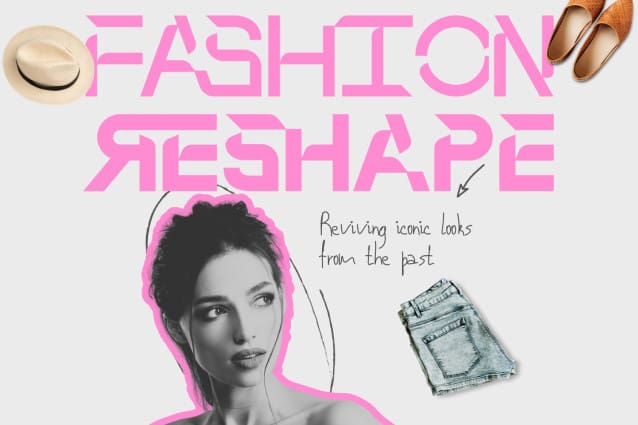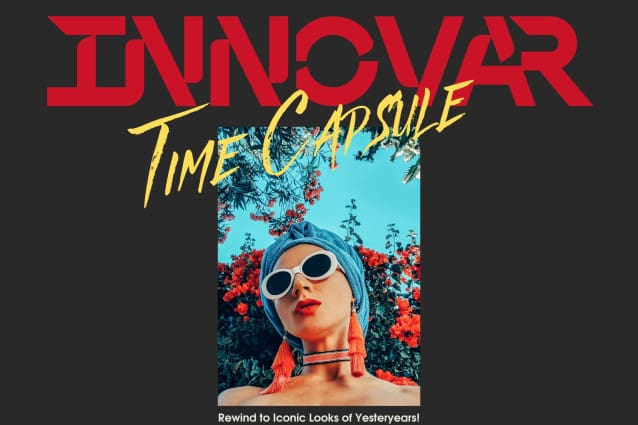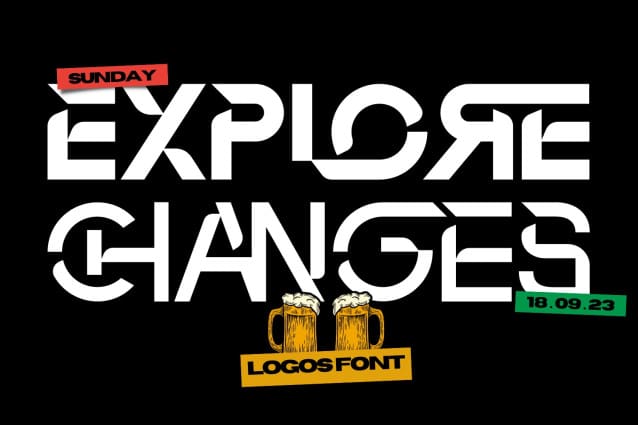
Explore Changes Font
Explore Changes Font is a futuristic font that we designed with a unique and original touch for various types of future designs. It’s a stylish and modern expanded sans-serif typeface that features unique ligatures and alternate characters. This typeface is suitable for various design projects such as branding, packaging, advertising, and more.
Explore Changes was built with OpenType features and includes 100 ligatures, alternate, numbers, punctuation, and it also supports other languages.
AC AD AL AN AR AS AT AU AV BE CA CE CH CO CT DE DI EA EC ED EE EL EM EN EP ER ES ET FE FO FR GE HA HE HI HO IE IC IL IN IO IR IS IT JU KE LA LE LI LL LO LY MA ME MI NC ND NE NG NO NT NS OC OF OM ON OO OP OR OT OU OW PA PR RA RD RE RI RO RS RT SE SH SI SO SS ST TA TE TH TI TO TR TT UM UN UR VE WI WO